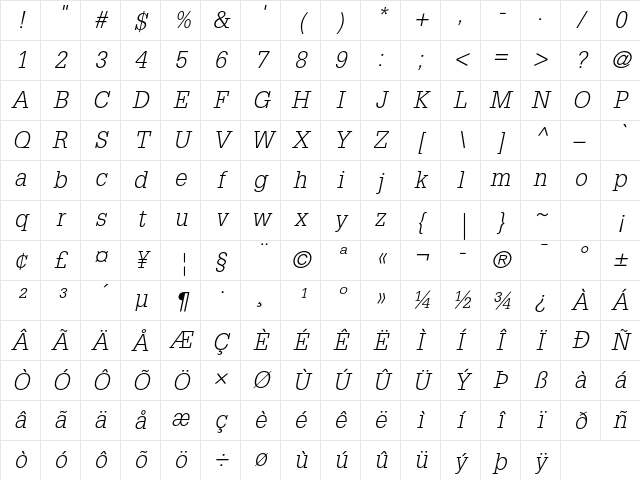
Glypha LT Std 45 Light Oblique Free Font
Glypha LT Std 45 Light Oblique
Style: 45 Light Oblique
Design Context for Glypha LT Std
Glypha LT Std is a composed and adaptable typeface that performs quietly and consistently across a wide range of design contexts. The slanted form adds forward momentum and visual energy. Its slender proportions lend an understated elegance to any composition.